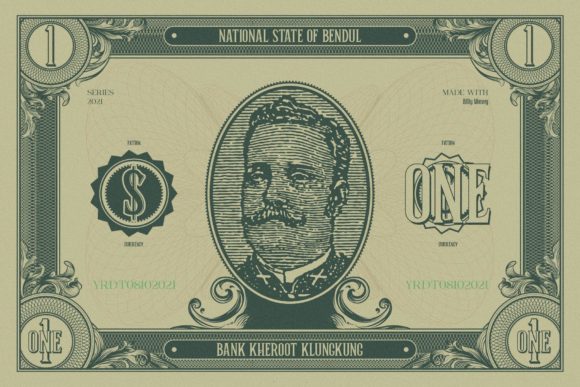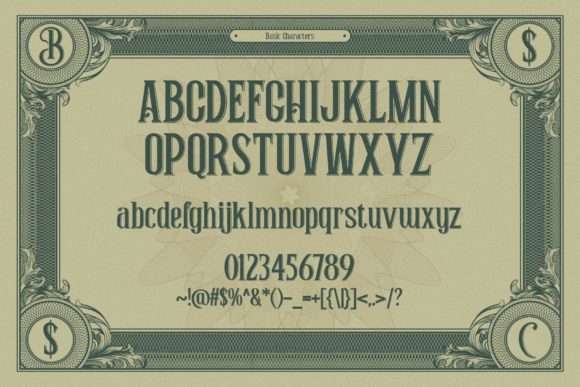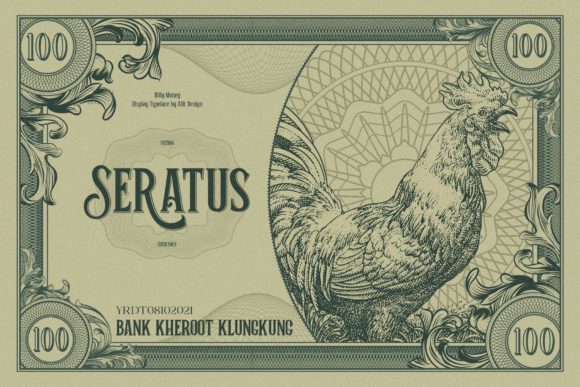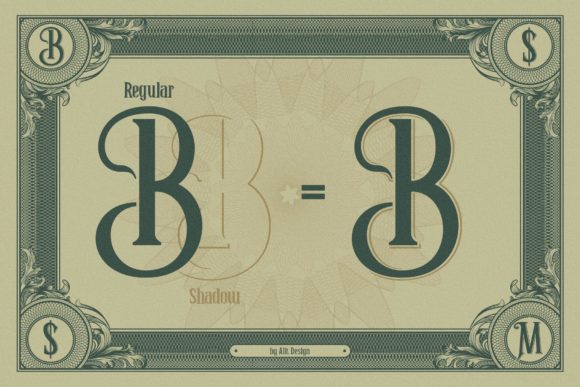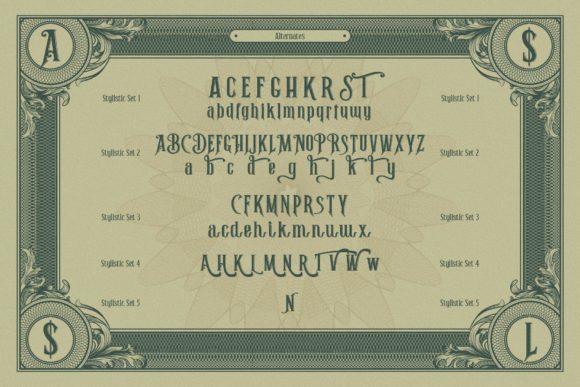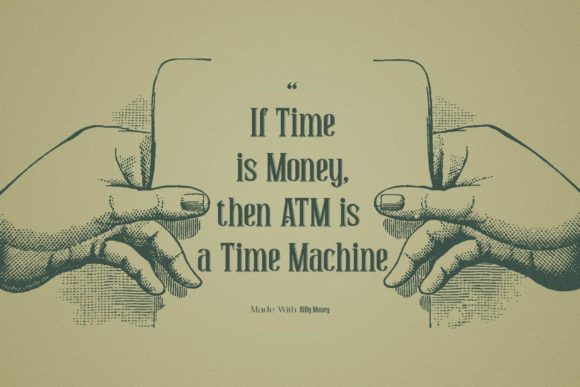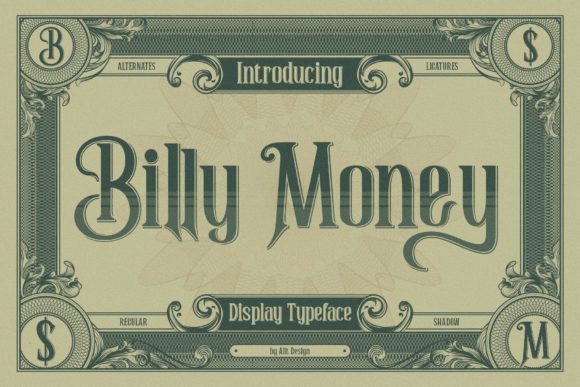
The Billy Money Font: Elevate Your Designs with Elegant Victorian Flair
The Billy Money font is a stunning display typeface inspired by the design of banknotes, which often feature an outdated Victorian style. This font is perfect for creating elegant, vintage designs that exude luxury and refinement. In this article, we’ll dive into the world of Billy Money, exploring its features, uses, and alternatives.
• 💯 Elegant, refined design inspired by Victorian banknotes
• ✅ Perfect for creating luxurious, vintage-style designs
• 🎨 Highly versatile, suitable for various design projects, from packaging to certificates
• 📚 Extensive character set, including OpenType features and glyphs
• ⚠️ Limited use for body text, as it’s primarily designed for display purposes
• 🤔 May require some manual kerning for optimal results
The Billy Money font was designed with the goal of capturing the essence of Victorian-era banknotes. The designer’s inspiration came from the intricate details and ornate flourishes found on these historic notes. The result is a font that’s both elegant and refined, perfect for creating luxurious, vintage-style designs.
Font Name Billy Money Font
Author Alit Design
Q: What type of designs is Billy Money best suited for?
A: Billy Money is perfect for creating elegant, vintage-style designs, such as packaging for luxury goods, certificates, and promotional materials for high-end brands.
Q: Can I use Billy Money for body text?
A: While Billy Money is a beautiful font, it’s primarily designed for display purposes. For body text, you may want to choose a font that’s more legible and easier to read.
Q: Is Billy Money a script font?
A: No, Billy Money is a display typeface with a serif design, inspired by Victorian-era banknotes.